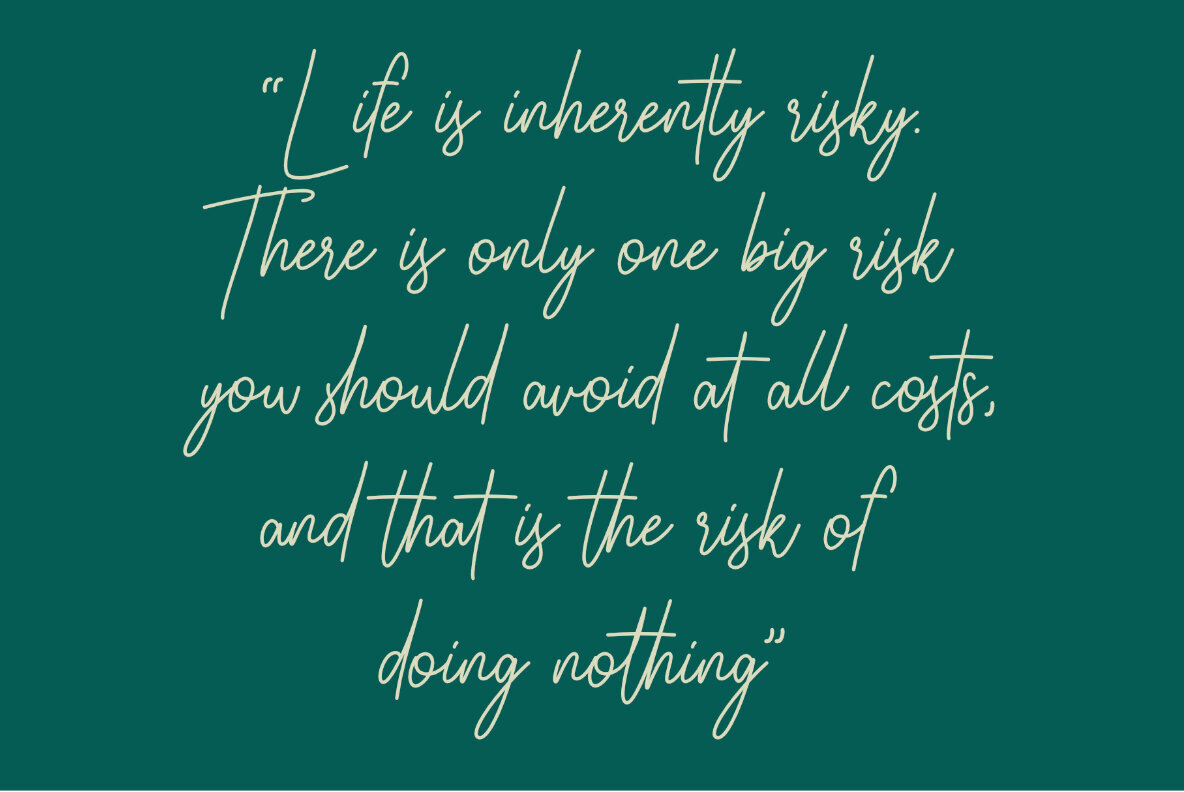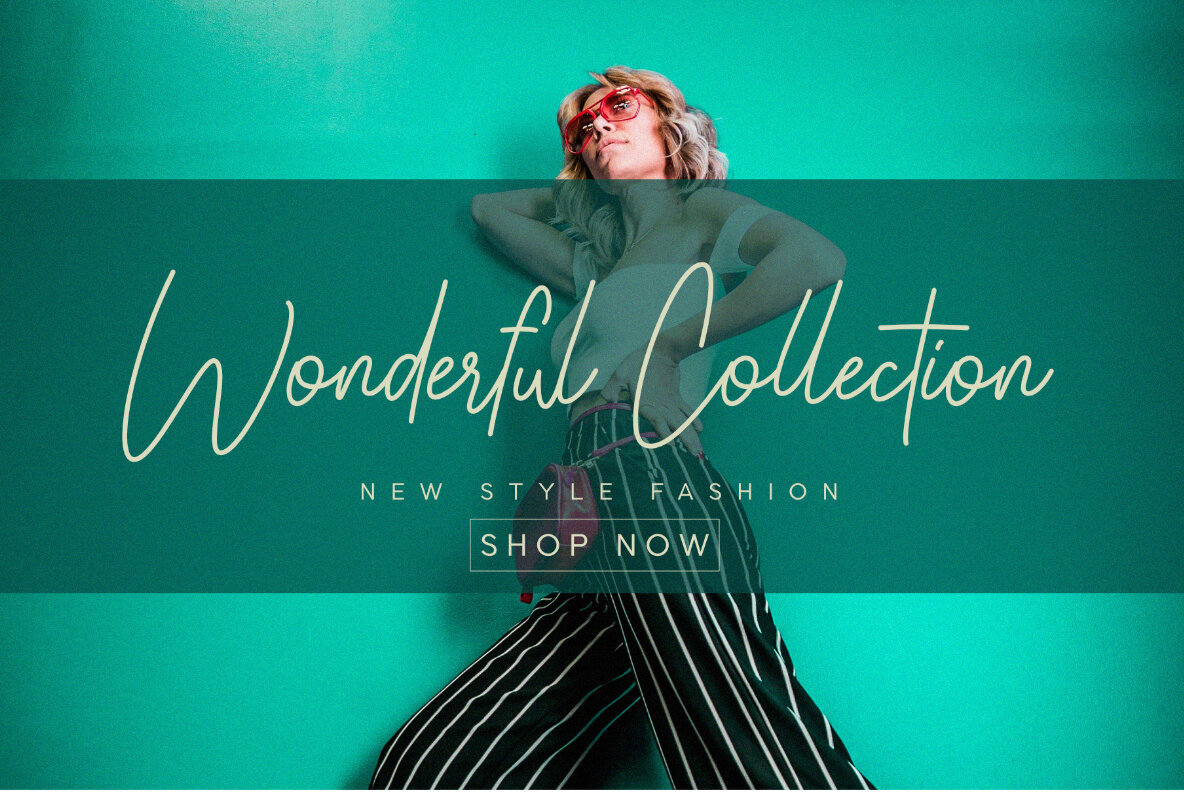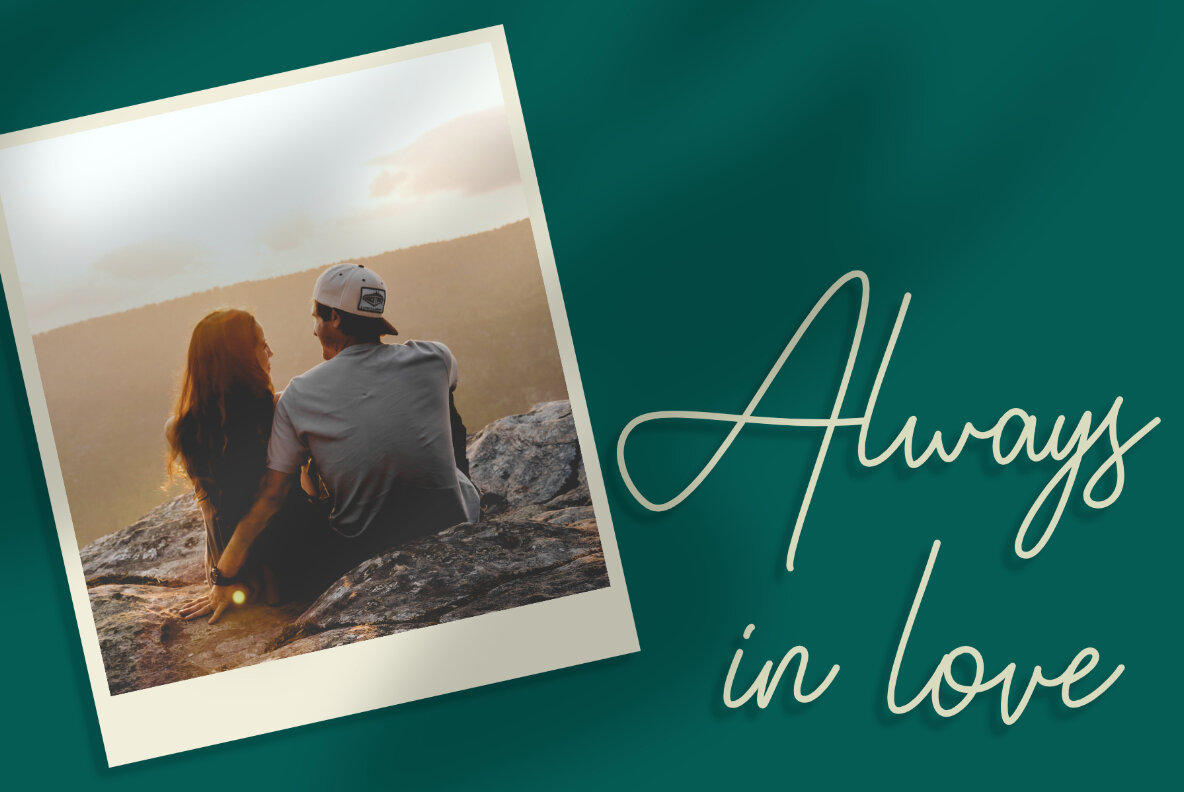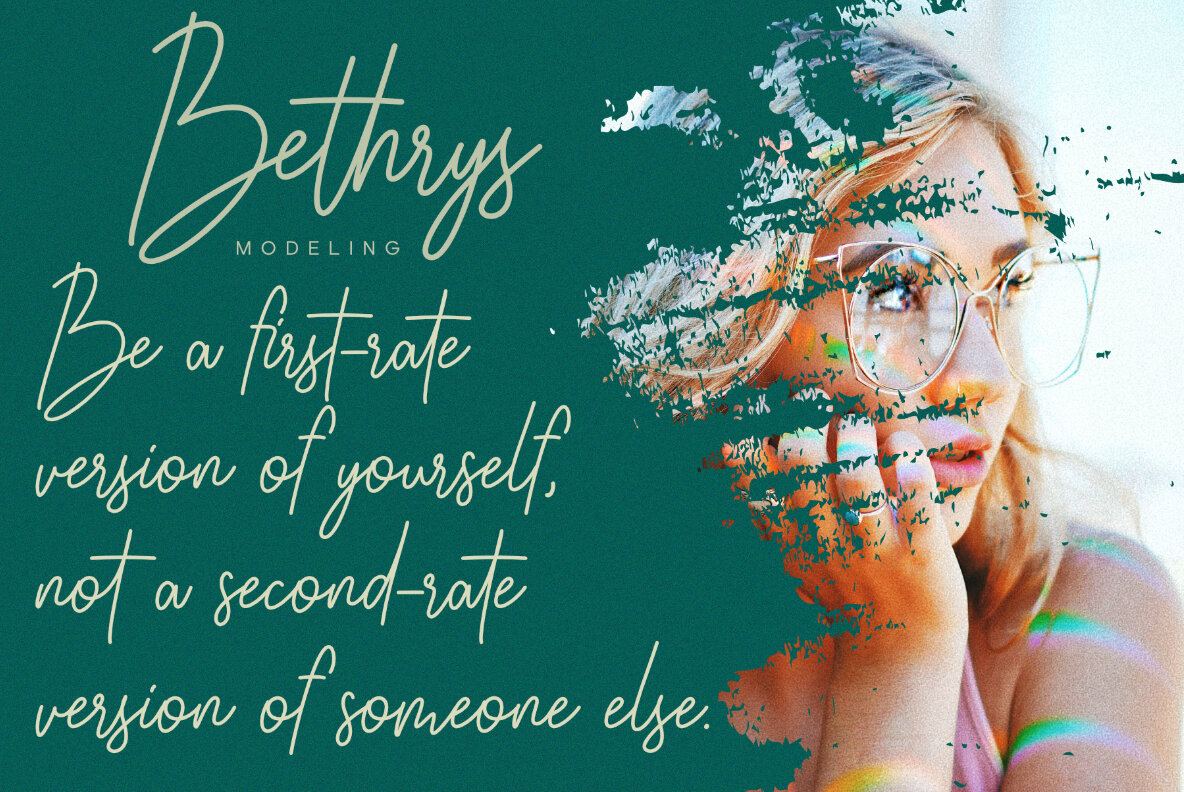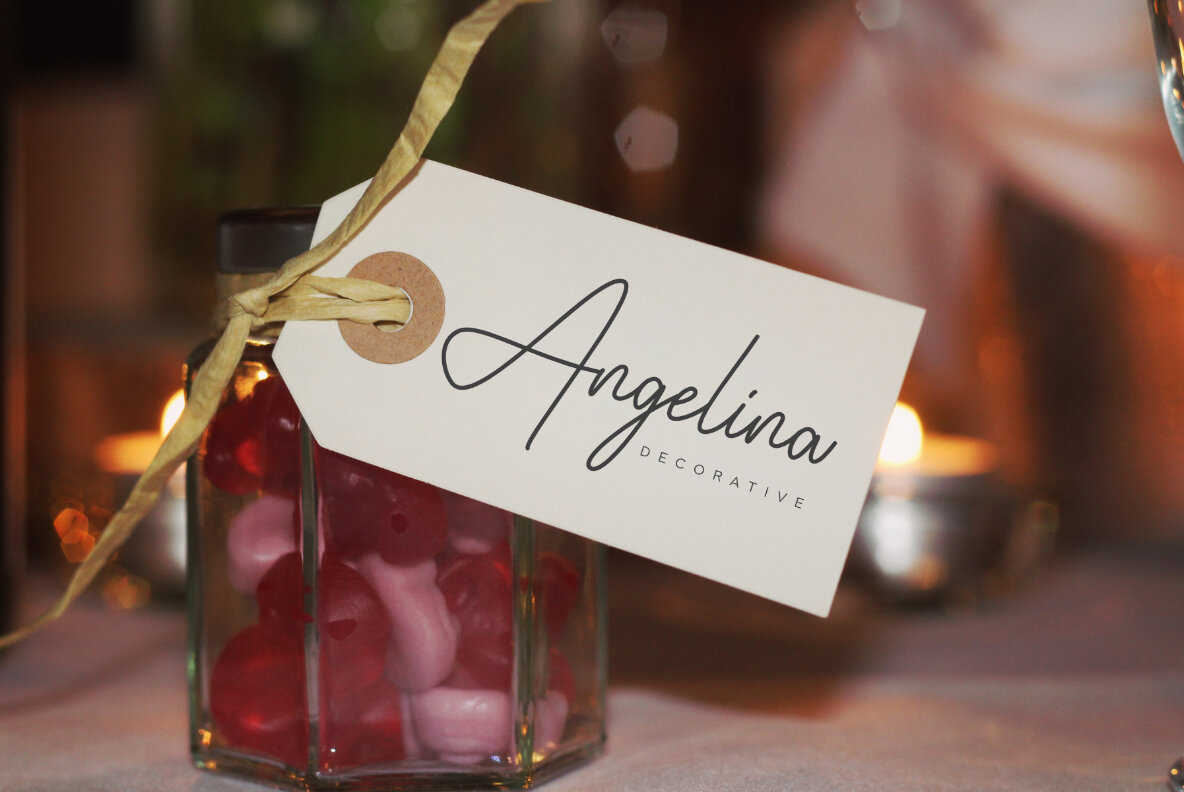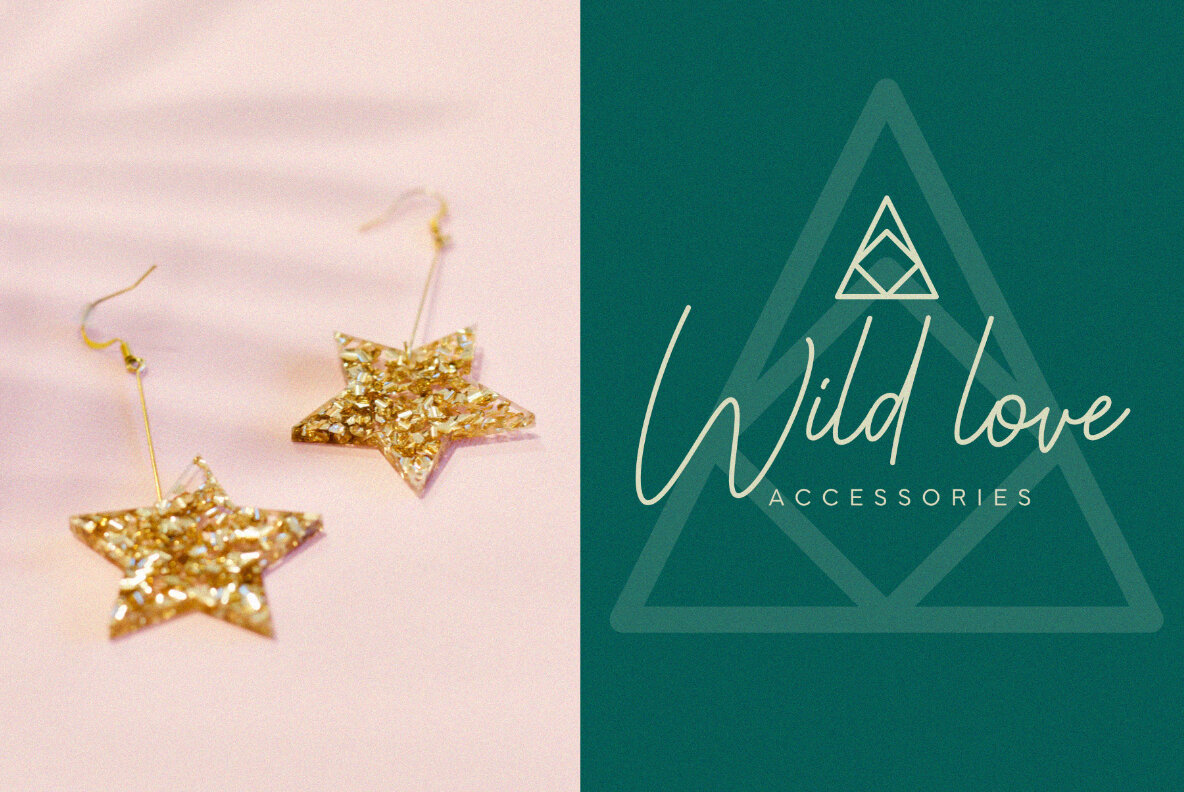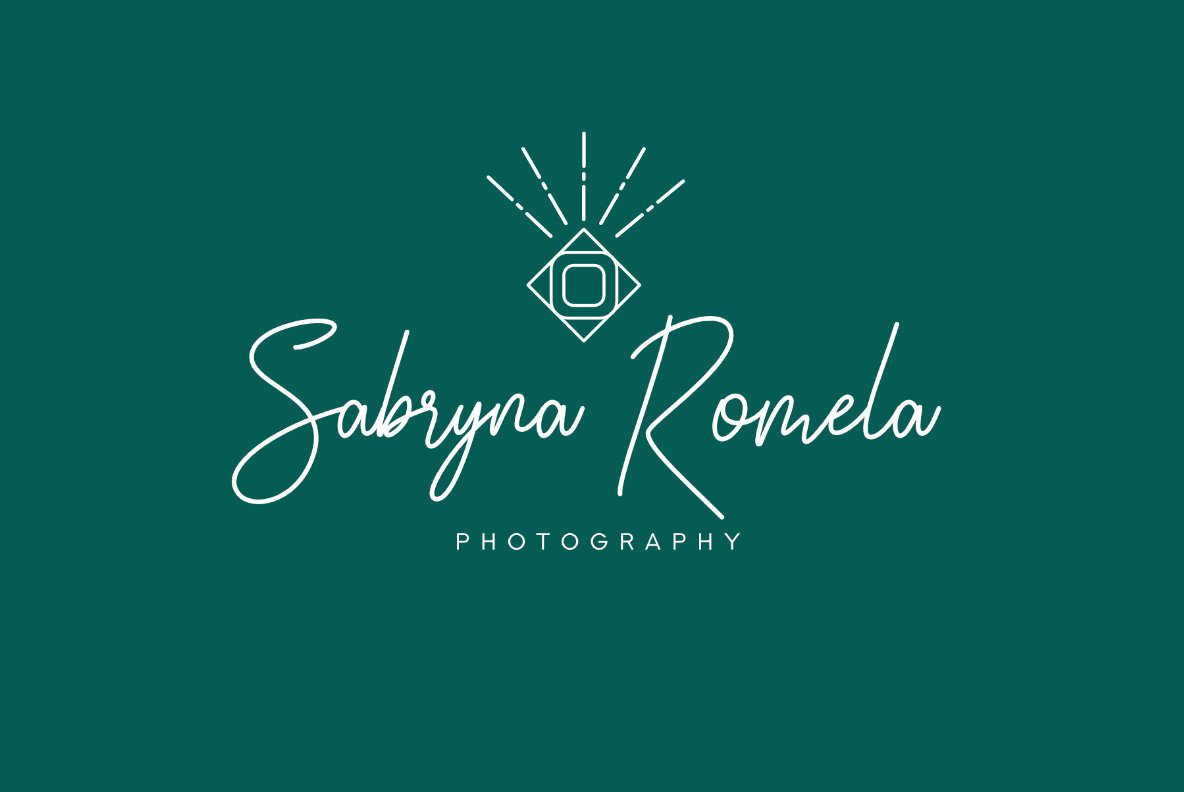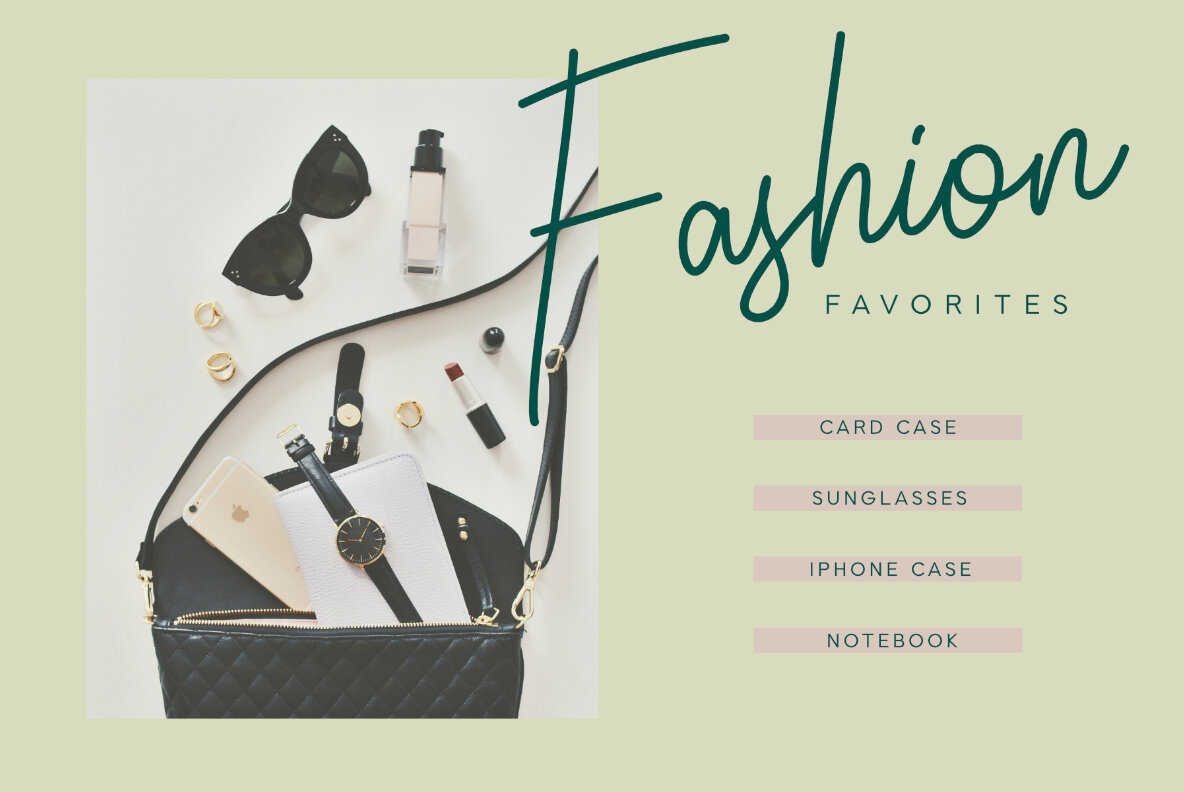
Arithysh Eternal Font
Arithysh Eternal
Arithysh Eternal embodies the elegance of a signature-style script, graced with distinctive curves and an inky flow. This stylish handwritten font is ideally suited for a variety of projects, bringing a timeless touch to designs such as wedding invitations, thank you cards, quotes, and logos. Features: Seamlessly accessible through tools like Adobe Illustrator, Photoshop, InDesign, and even Microsoft Word, Arithysh Eternal offers PUA encoded characters, ensuring full access without additional software. It supports a broad range of languages, including Afrikaans, Danish, Dutch, French, German, Indonesian, and many others, making it a versatile choice for international designs.Arithysh Eternal: A Sophisticated Handwritten Font